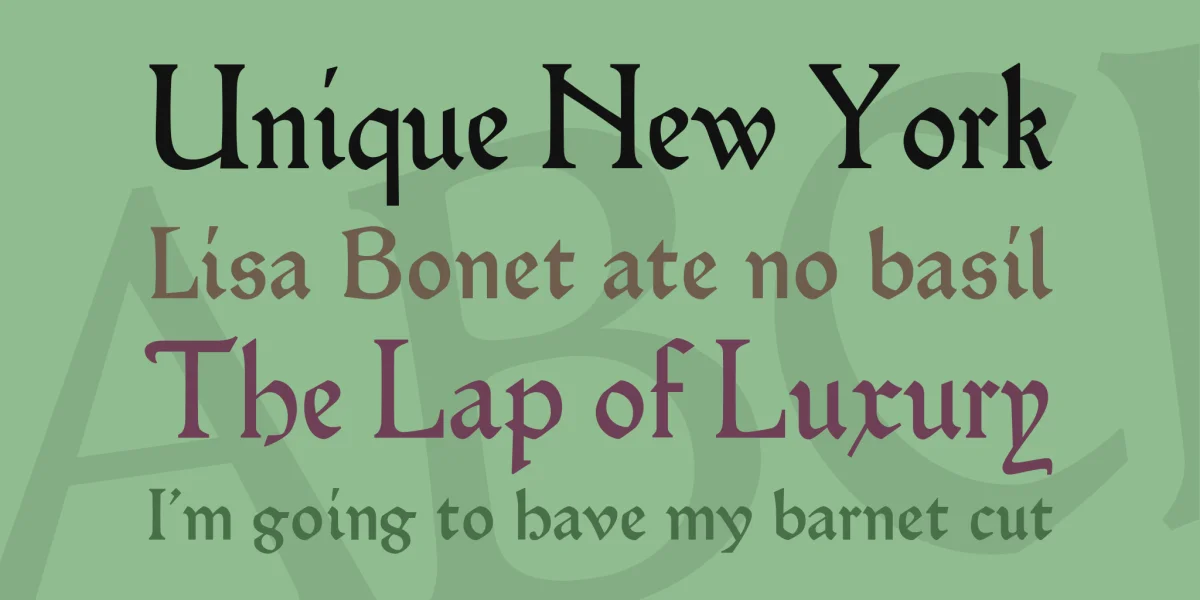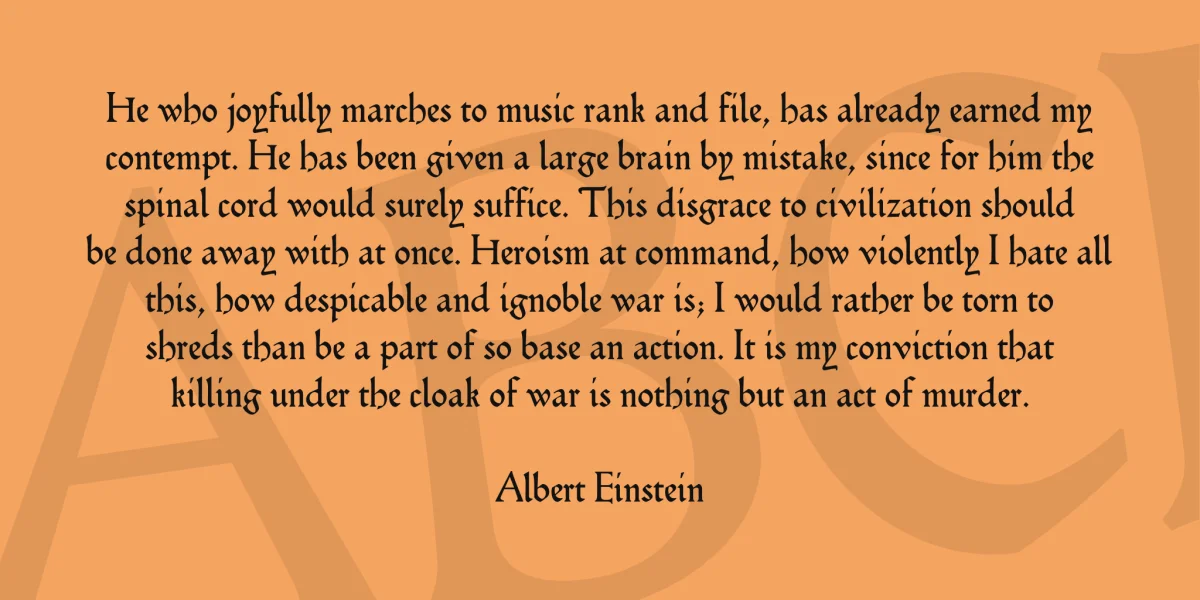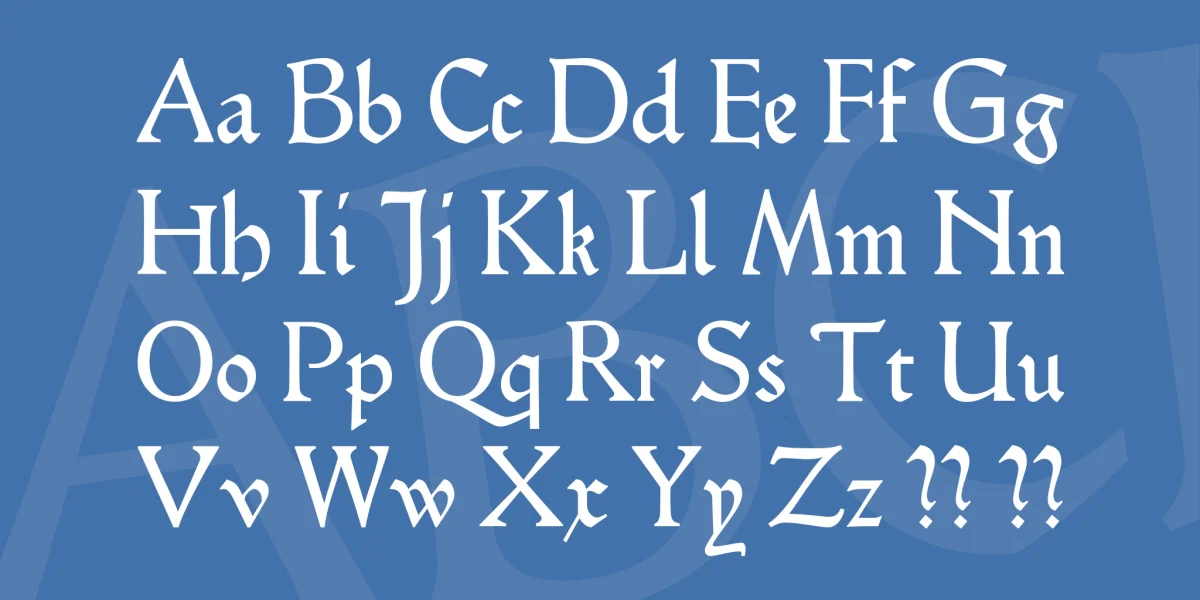
Hamlet (also named Kessler-Blackletter), designed by Edward Johnston, cut in three sizes (10, 12 and 18 pt) by Edward Prince for William Shakespeare’s Hamlet. Published by Harry Kessler’s Cranach Press in Weimar in 1929. The type is based on the Durandus for the lowercases, and Sweynheim & Pannartz’ Subiaco type for the capitals. The type was used for trials in other books, none of which were completed.Type design workshop at Bauhaus Universität Weimar and Anna Amalia Bibliothek Weimar, January 2018.Source: Hamlet, Shakespeare, 1929.Workshop participants: Adrian Brix, Alex Kara, Anne Pohlmann, Antonia Dieti, Carli Baumeister, Corinna Lobinger, Gabriel Dörner, Lena Vogel, Leon Lukas Plum, Marcel, Pohl, Markus Griebl, Martin Melcher, Sibo Pan, Tae Sung Park, Theresa Zingel, Zhaoyue Fan, Alexis Faudot, Rafel Ribas.Font designed and produced by Alexis Faudot and Rafael Ribas, directed by Jérôme Knebusch, Atelier National de Recherche Typographqiue (ANRT), Nancy.Copyright © 2019 ANRT. All rights reserved.